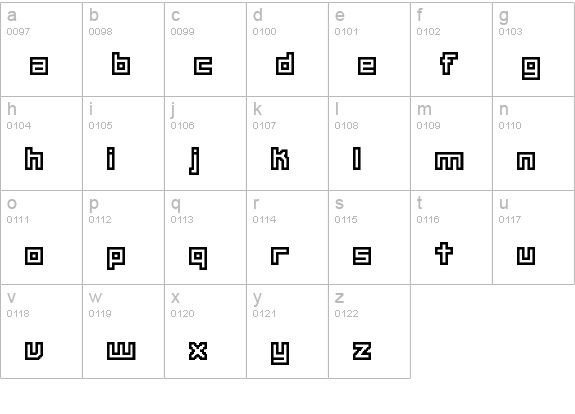
Unlearned BRK Font Details
Unlearned BRK font is a stunning display typeface that effortlessly blends modernity with a touch of artistic rebellion. With its bold and edgy design, this font demands attention and adds a unique flair to any project. Unlearned BRK is a versatile font, perfect for a wide range of creative endeavors, from branding and logos to headlines and posters. Its sharp and distinct letterforms make a powerful statement, while its carefully crafted details give it a refined and sophisticated aesthetic. One of the most remarkable aspects of Unlearned BRK font is its versatility. Whether you're looking to create a bold and eye-catching design or a sleek and minimalist look, this font has got you covered. Its extensive character set includes uppercase and lowercase letters, numerals, punctuation marks, and special characters, ensuring that you have all the tools you need to bring your vision to life. But what truly sets Unlearned BRK font apart is its accessibility. It is freely available to download at FontsMarket.com, making it easily accessible to designers, artists, and creatives from all walks of life. This means that you can fully unleash your creativity without any limitations or constraints. So, whether you're working on a personal project or a professional assignment, Unlearned BRK font is the perfect choice. Its bold and rebellious nature, combined with its versatility and accessibility, make it a must-have for anyone looking to make a statement with their designs. Download Unlearned BRK font today from FontsMarket.com and let your creativity run wild.